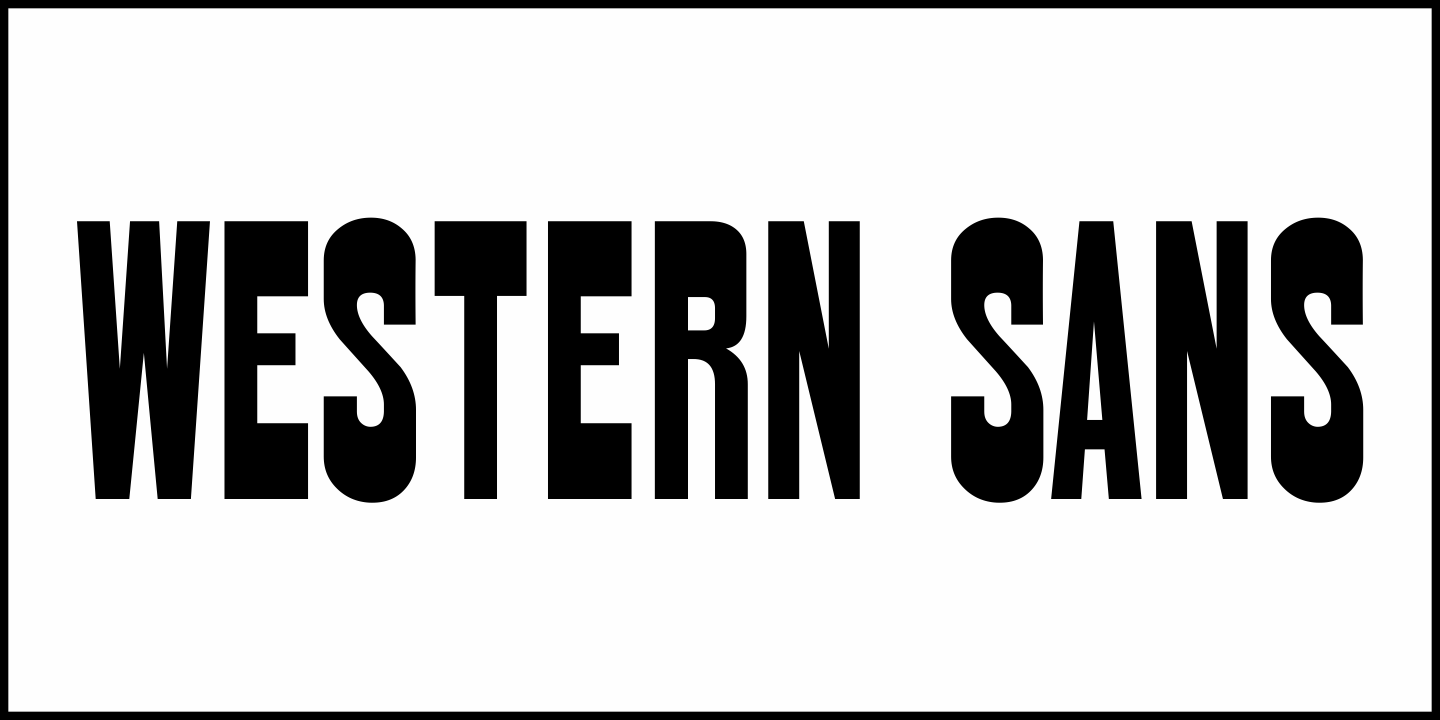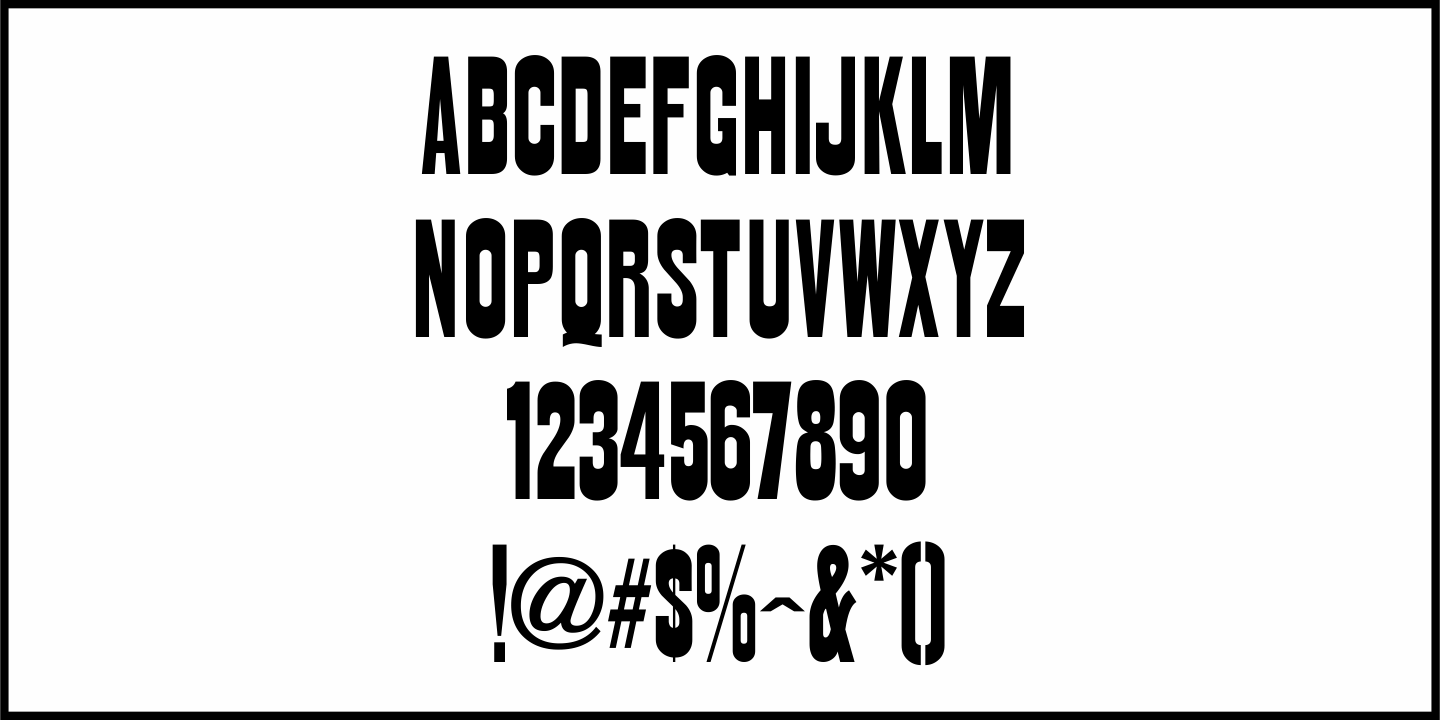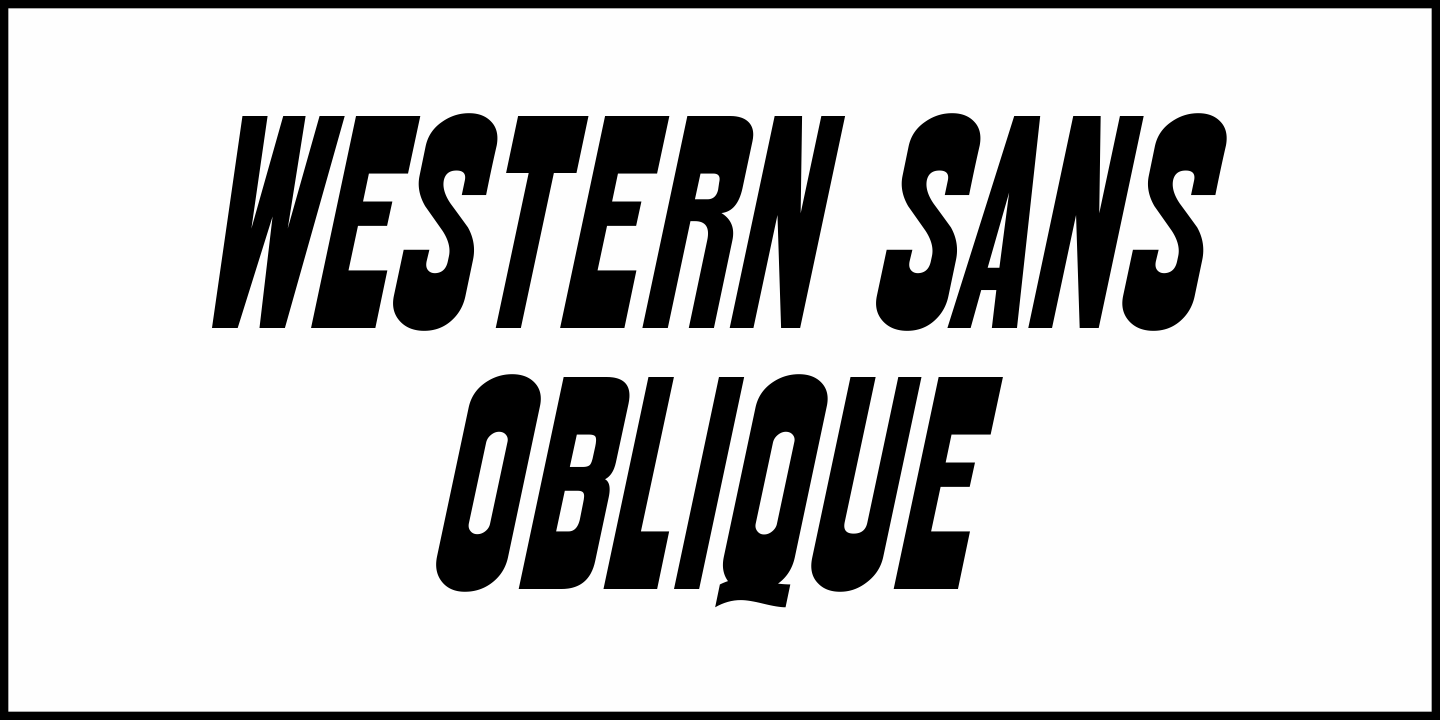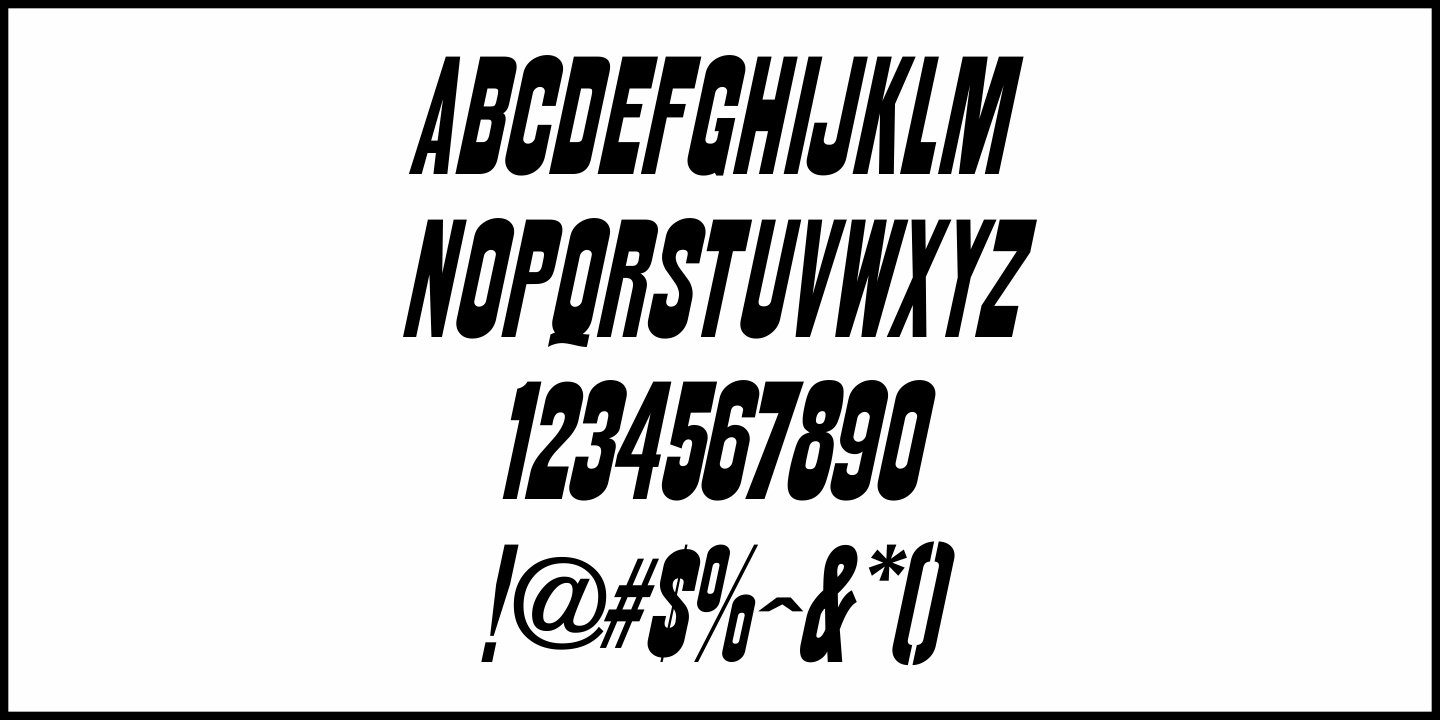
Western Sans
Take a classic Western wood type where the horizontals are thicker than the verticals and remove the slab serifs… The result is Western Sans JNL, which is available in both regular and oblique versions.
Western Sans JNL Regular by Jeff Levine Fonts